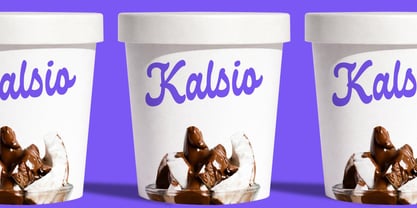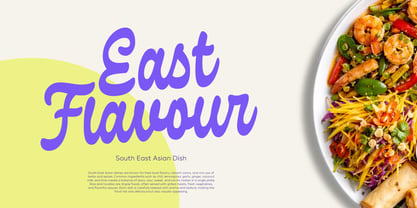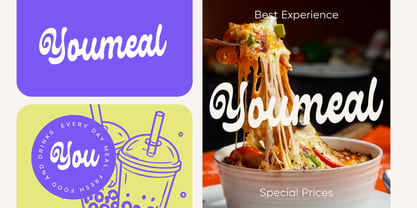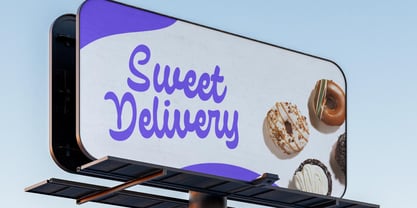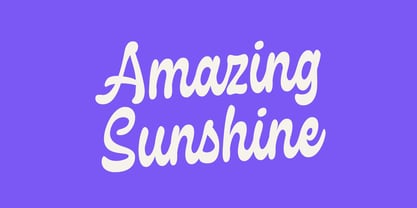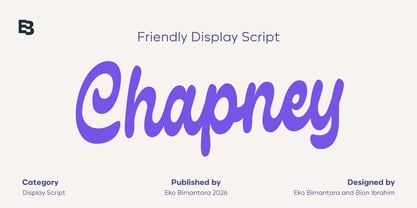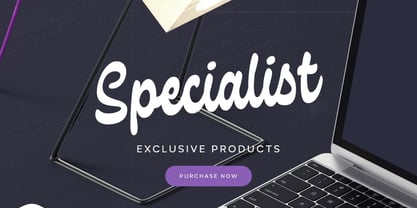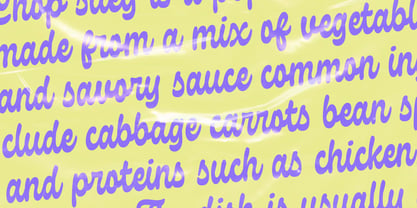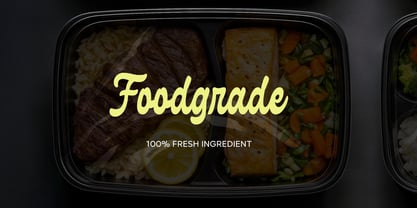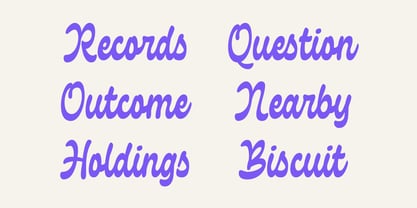
Chapney
by Eko Bimantara
The Chapney Font Family was designed by Eko Bimantara and published by Eko Bimantara. Chapney contains 1 styles. More about this family
Chapney is a friendly display script font with soft cursive strokes and smoothly designed letterforms that create a warm and approachable personality. Its flowing shapes feel natural and inviting, making the typeface easy to read while still expressive. Chapney is well suited for food branding, product design, web use, headers, titling, and a wide range of creative projects that need a cheerful and personable typographic touch.
Eko Bimantara is a type designer from Indonesia. Always has an intention to creating fonts that not only look great but also perform across a wide range of mediums and also across wide range of theme. The goal is to give designers the tools to make their projects that speaks a lot with various expression. Eko Bimantara’s fonts are featured in everything from corporate identities to street art posters, and have numerous ideas and concept ready to expand for fresh fonts for years further.